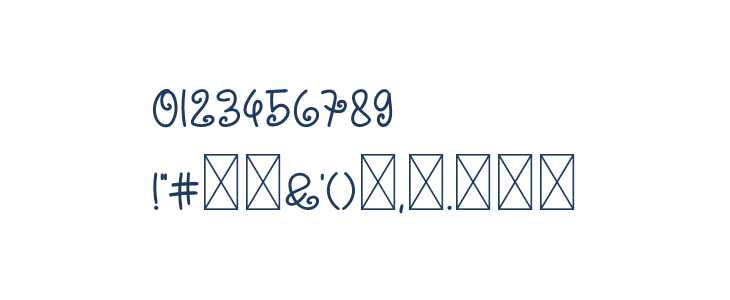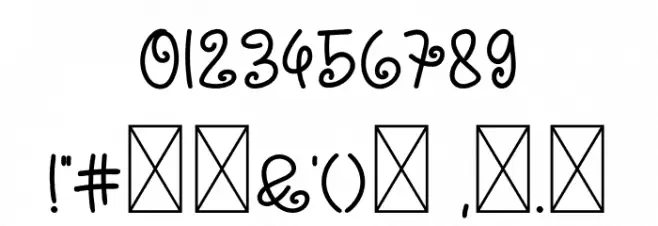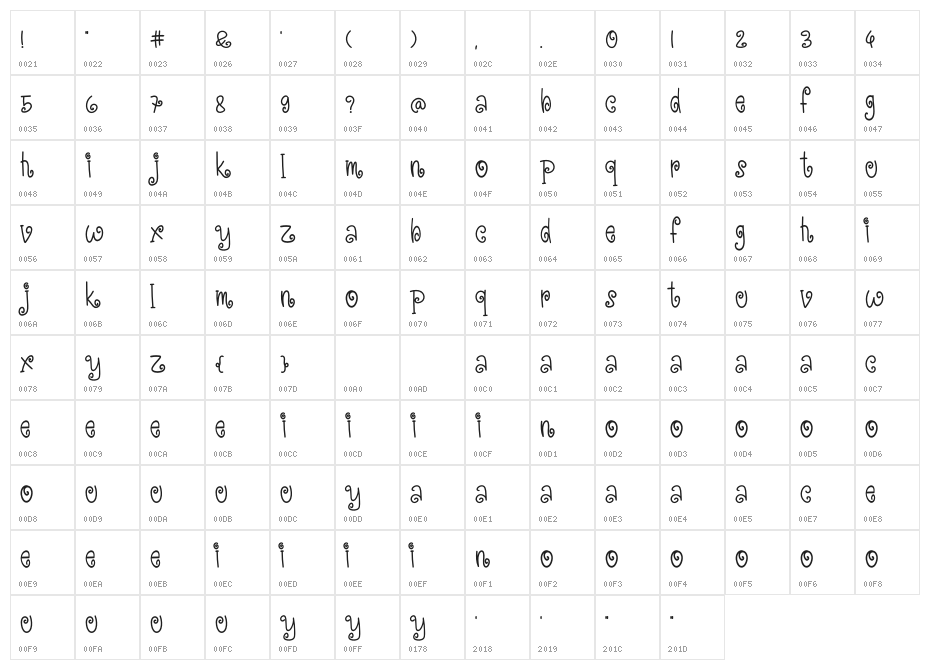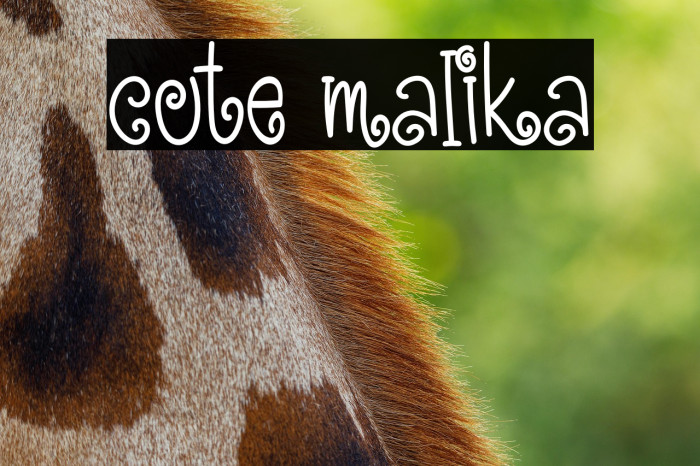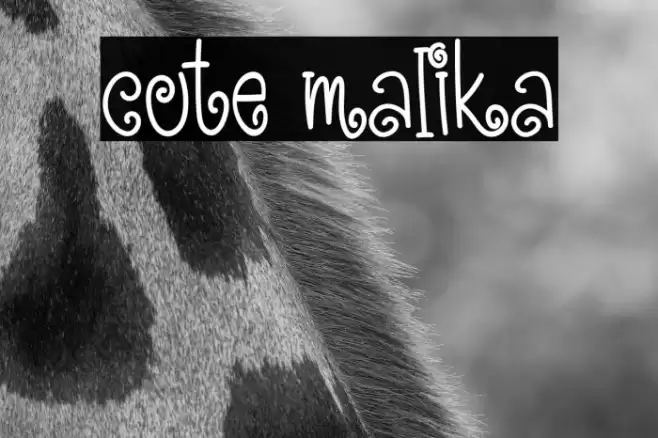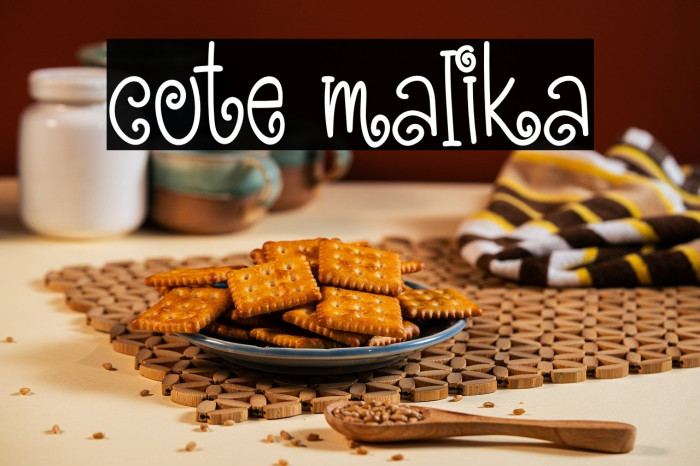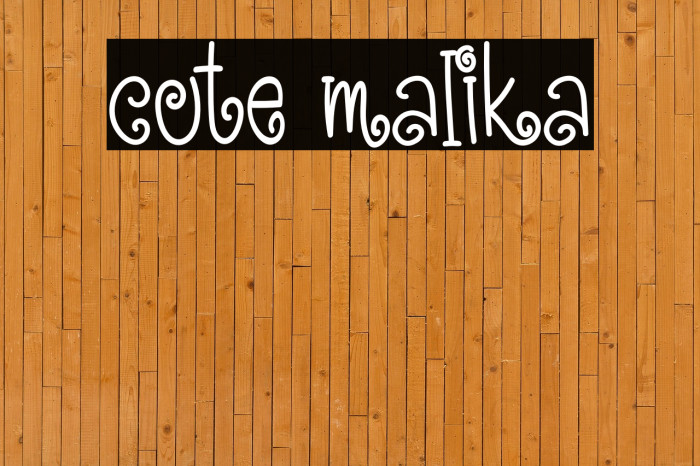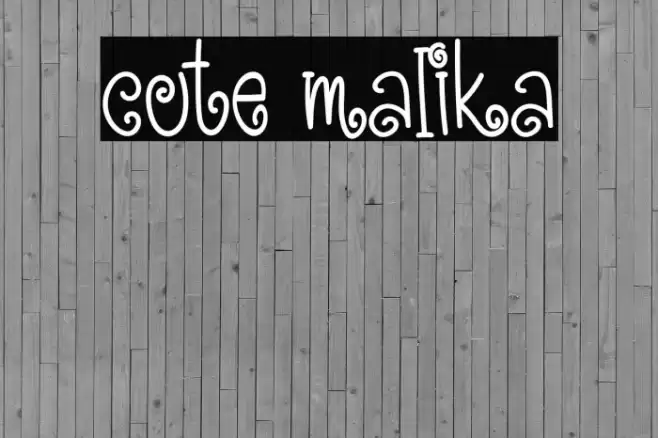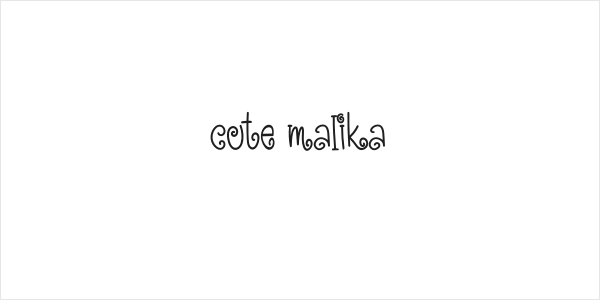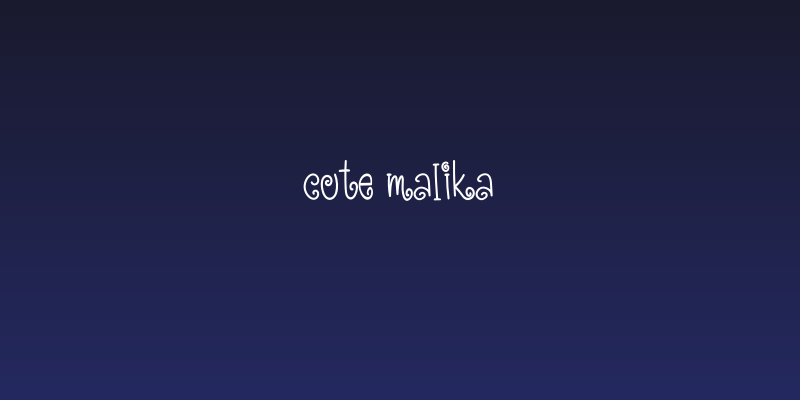
Cute Malika Font
Cute Malika Description
This playful and whimsical font features a unique, curly design that adds a touch of fun and creativity to any project. The characters are crafted with a consistent stroke width, giving them a balanced and harmonious appearance. The uppercase and lowercase letters share a similar style, with distinctive loops and swirls that make each letter stand out. The numbers and special characters maintain the same playful aesthetic, ensuring a cohesive look across all text elements. This font is perfect for projects that aim to convey a sense of joy and lightheartedness.
Overall StylePlayful
Use CaseHeadlines, Logos, Decorative text
Proposed ProjectsIdeal for children's books, playful branding, greeting cards, and creative invitations.